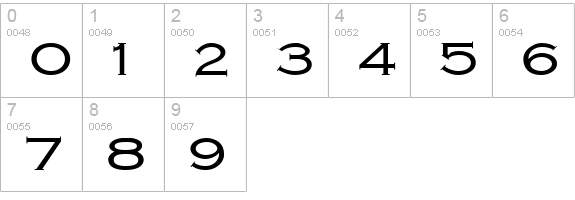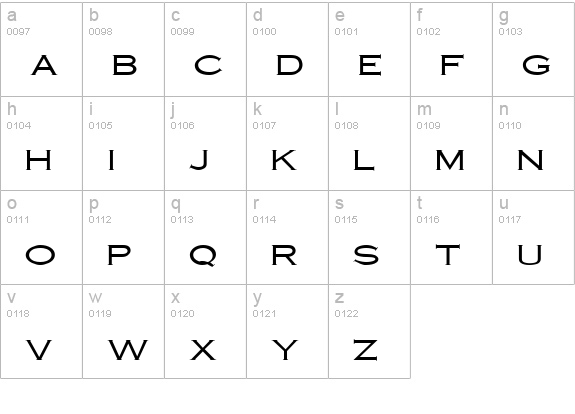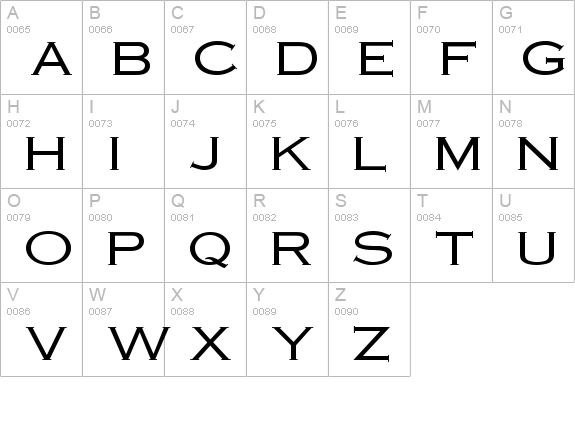
Cobalt Wide Normal Font Details
Cobalt Wide Normal is the standard, neutral, extended-width variant in the Cobalt typeface family \xE2\x80\x94 well suited to general body text, paragraphs, and standard typographic work.
Cobalt Wide Normal font is a modern and sleek typeface that exudes sophistication and professionalism. Its clean lines and wide letterforms make it perfect for a variety of design projects, from branding to editorial layouts. The versatility of this font allows it to be used in both digital and print applications, ensuring a polished look every time. What makes Cobalt Wide Normal font even more appealing is that it is available for free download at FontsMarket.com. This means that you can elevate your designs without any added cost, making it a valuable asset for any designer or creative professional. Don't miss out on the opportunity to enhance your projects with the elegant and stylish Cobalt Wide Normal font - download it today and take your designs to the next level.